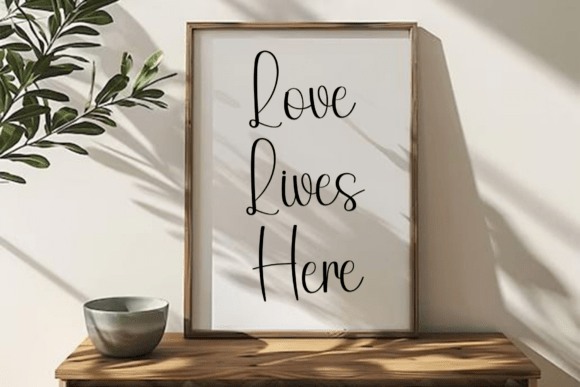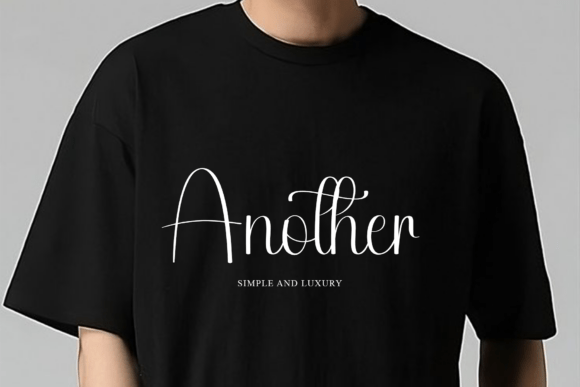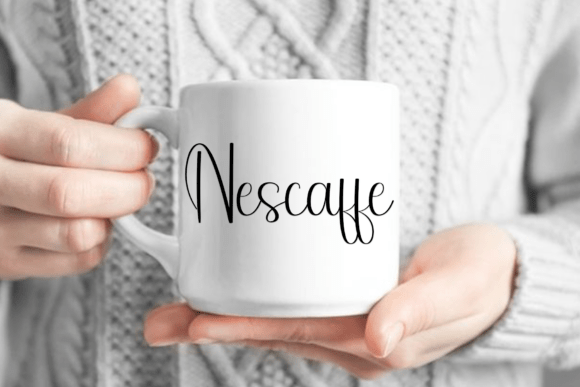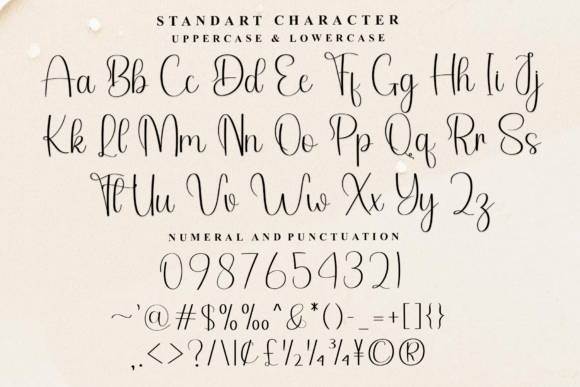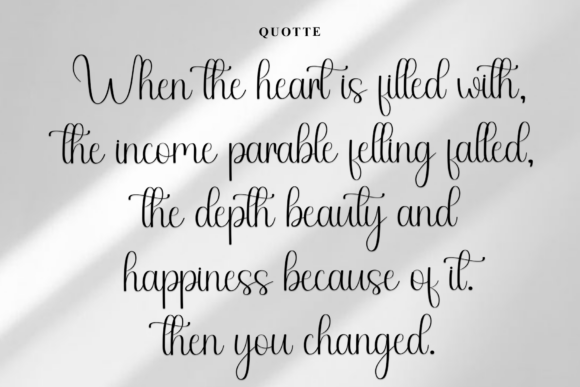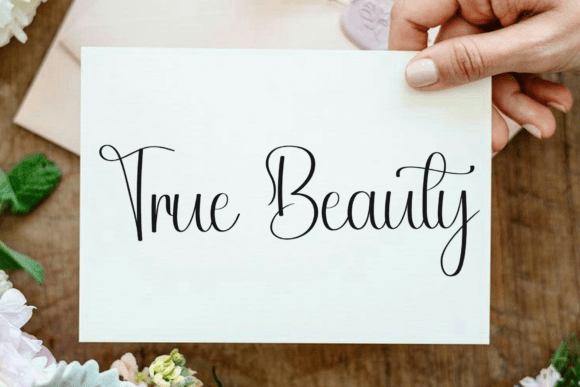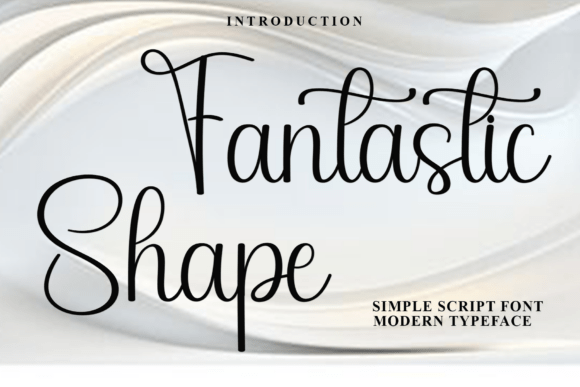
Introducing Fantastic Shape Font: The Ultimate Holiday Typeface
The holiday season is upon us, and what better way to get into the spirit than with a festive and merry typeface? Look no further than Fantastic Shape Font, a decorative font that captures the essence of the holiday season with its whimsical flair and enchanting charm. In this article, we’ll dive into the world of Fantastic Shape Font and explore its features, benefits, and uses, perfect for designers and crafters looking to add a touch of magic to their projects.
Fantastic Shape Font is a unique and captivating typeface that embodies the spirit of the holiday season. Its decorative elements and whimsical design make it perfect for creating festive and fun designs that are sure to bring a smile to anyone’s face. Whether you’re designing greeting cards, gift tags, or holiday-themed projects, this font is sure to add a touch of enchantment to your words.
Fantastic Shape Font is specifically designed with the holiday season in mind. Its cheerful and nostalgic ambiance makes it perfect for a wide range of projects, including:
- Greeting cards: Create festive and fun greeting cards that will make your loved ones feel special.
- Gift tags: Add a personal touch to your gifts with custom gift tags that feature Fantastic Shape Font.
- Holiday-themed projects: From party invitations to holiday-themed social media graphics, this font is perfect for any project that requires a festive touch.
Let Your Typography Shine
Fantastic Shape Font is more than just a typeface – it’s a way to add magic to your words. With its whimsical design and festive charm, this font is sure to make your designs stand out from the crowd. Whether you’re a designer, crafter, or DIY enthusiast, Fantastic Shape Font is the perfect way to add a touch of personality and style to your projects.
So why should designers and crafters choose Fantastic Shape Font for their holiday projects? Here are just a few benefits:
- Unique and eye-catching designs: With Fantastic Shape Font, you can create designs that are truly one-of-a-kind.
- Versatile: This font can be used for a wide range of projects, from greeting cards to social media graphics.
- Festive and fun: Fantastic Shape Font is the perfect way to add a touch of holiday cheer to your designs.